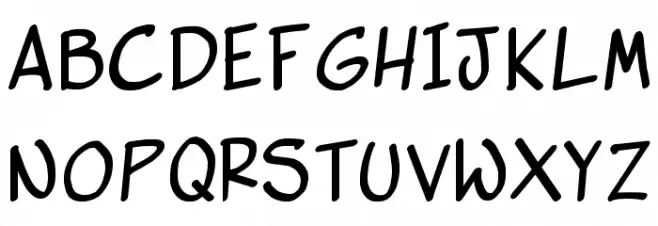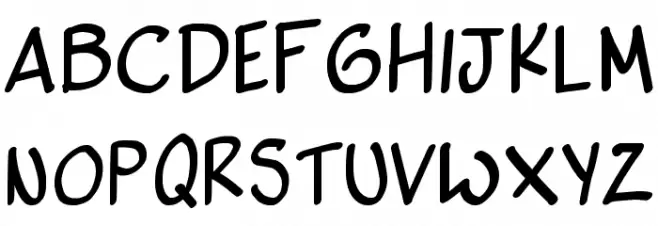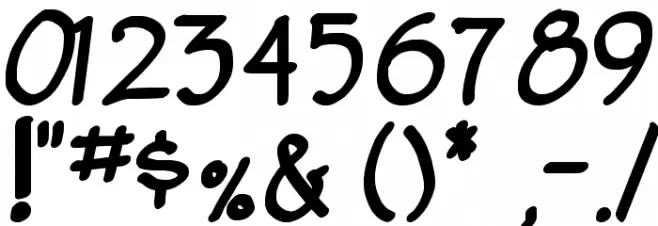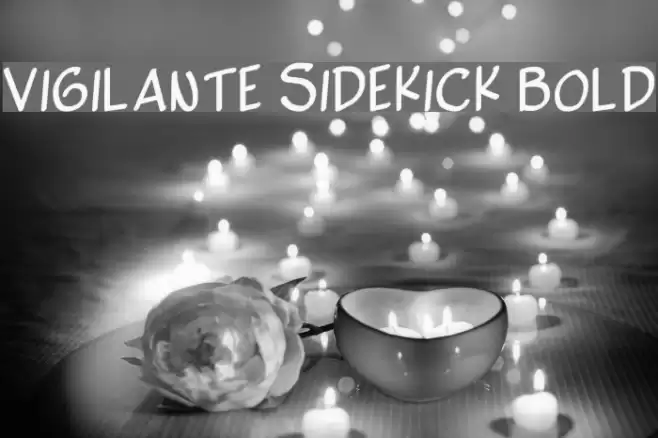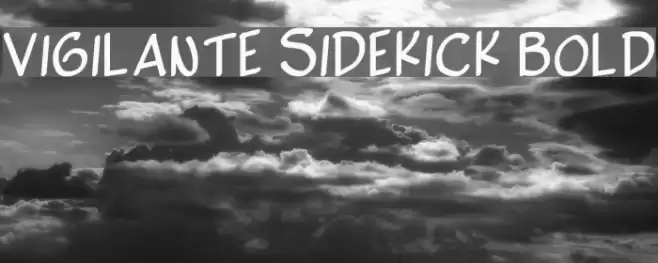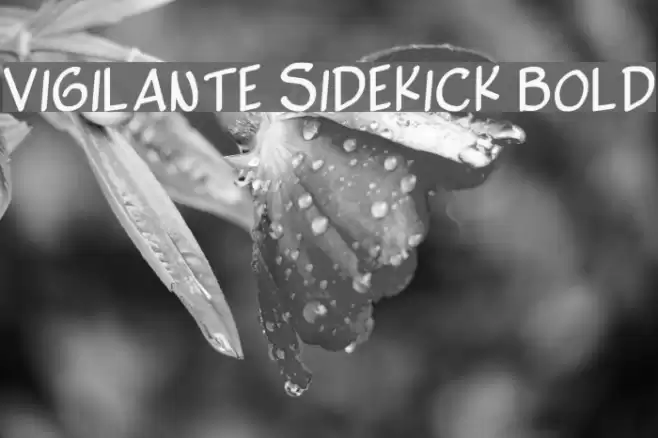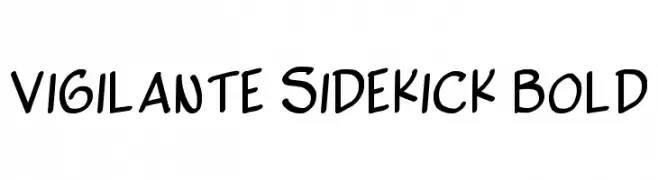
Vigilante Sidekick Bold
This font features a playful and energetic style, characterized by its bold and slightly irregular strokes. The letters have a hand-drawn appearance, giving them a casual and informal feel. The uppercase and lowercase letters are consistent in their whimsical design, with rounded edges and a slight slant that adds to the dynamic look. The numerals and special characters maintain the same lively aesthetic, making the font versatile for various creative projects. Its boldness ensures readability while the unique style adds a touch of personality.
A bold, playful font with a hand-drawn, energetic style.
- Proposed Projects: Ideal for comic books, children's books, playful branding, and creative posters.
- Overall Style: Playful
- Use Case: Headlines, Logos, Posters